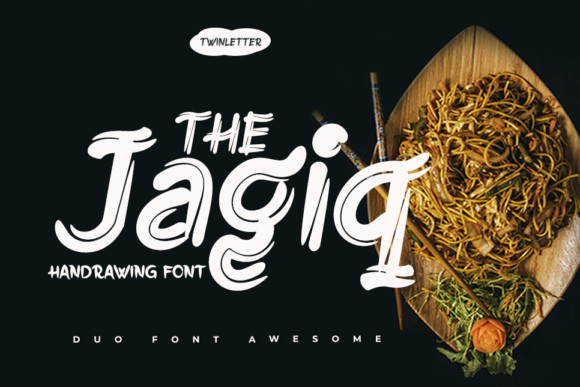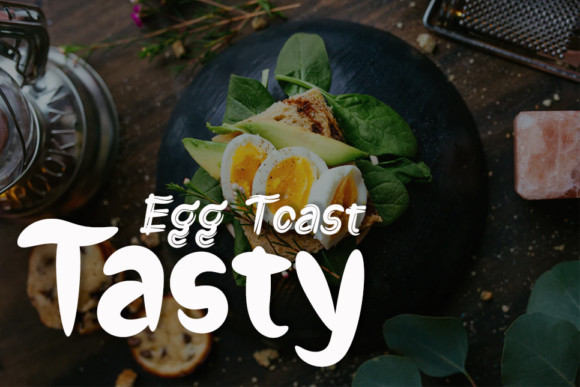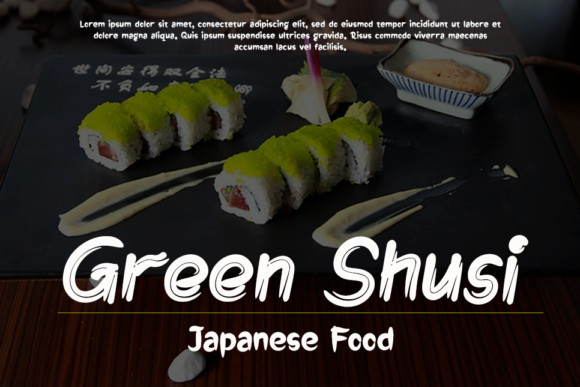
The Jagiq Font
The Jagiq is a playful display font, carefully handcrafted to become a true favorite. Its casual charm makes it appear wonderfully down-to-earth, readable and, ultimately, incredibly versatile. The Jagiq will look outstanding in any context, whether it’s being used on busy backgrounds or as a standalone headline!